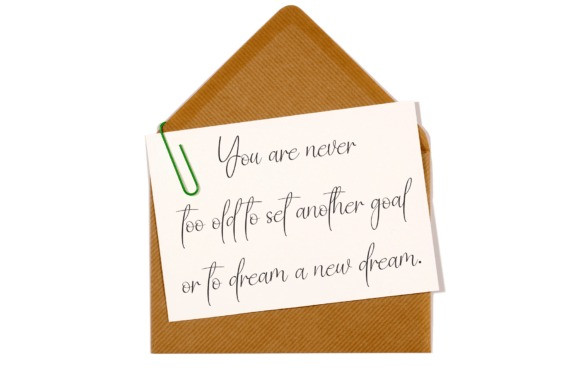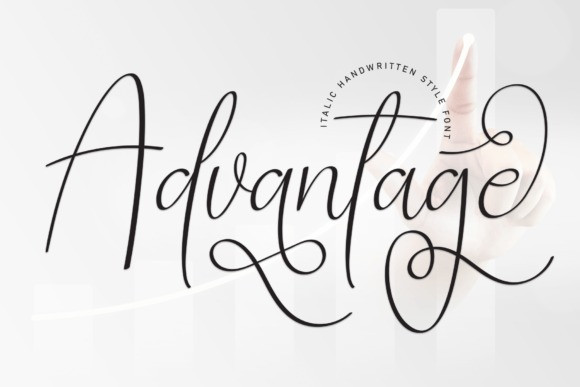
Advantage Handwriting Font
Advantage Handwriting Font is a dazzling script font. This font is neatly crafted and highly detailed.Whatever the topic, this font will be a wonderful asset to your font library, as it has the potential to enhance any creation.This font is PUA encoded which means you can access all glyphs and swashes with ease